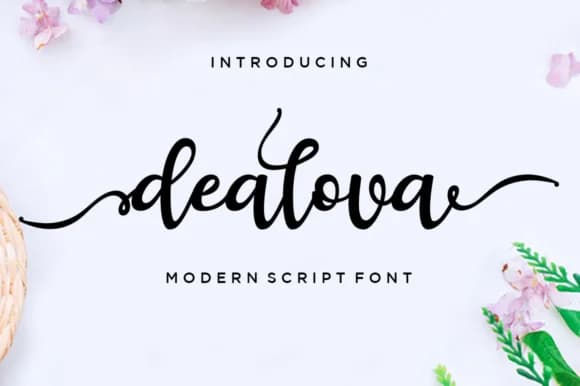
Dealova Script Font by akifatype is a refined handwritten script that masterfully blends vintage aesthetic with modern legibility. This elegant typeface delivers the warmth of hand-lettering while maintaining clarity for professional applications, making it suitable for designers who value authenticity in their typography choices.
The distinctive character of Dealova makes it exceptionally well-suited for wedding invitation suites and formal stationery where refined elegance matters most. It performs equally well for boutique product labels and luxury packaging targeting craft-conscious consumers, greeting card designs with personality, and small-business branding seeking a handmade aesthetic. The script's balanced letterforms work seamlessly across both large display applications and smaller text settings, offering flexibility for designers building cohesive brand systems. Its natural qualities particularly resonate in beauty, artisanal food, and lifestyle sectors where authenticity speaks to discerning audiences.
The font's organic rhythm feels genuinely crafted rather than artificially mechanical, bringing depth to any project benefiting from personal typography. Whether you're creating personalized gift tags and packaging, designing hand-lettered social media content, or developing brand identities for creative enterprises, Dealova delivers sophisticated warmth without pretension. Get Dealova Script Font on Creative Fabrica and bring this refined handwritten style to your design work.
Dealova Script Font is a script font that shines as a display or heading face. Pair it with a clean sans-serif or serif font for body text β the contrast creates a clear hierarchy while the two styles stay balanced and easy to read.
Dealova Script Font